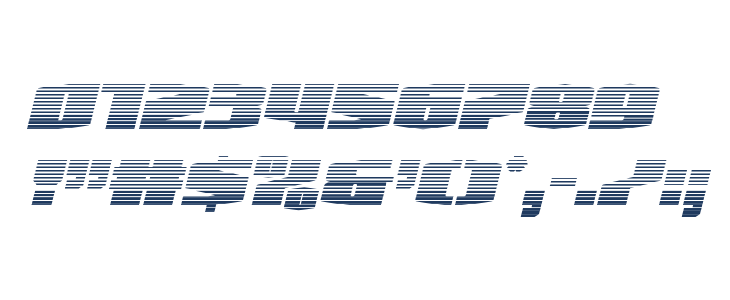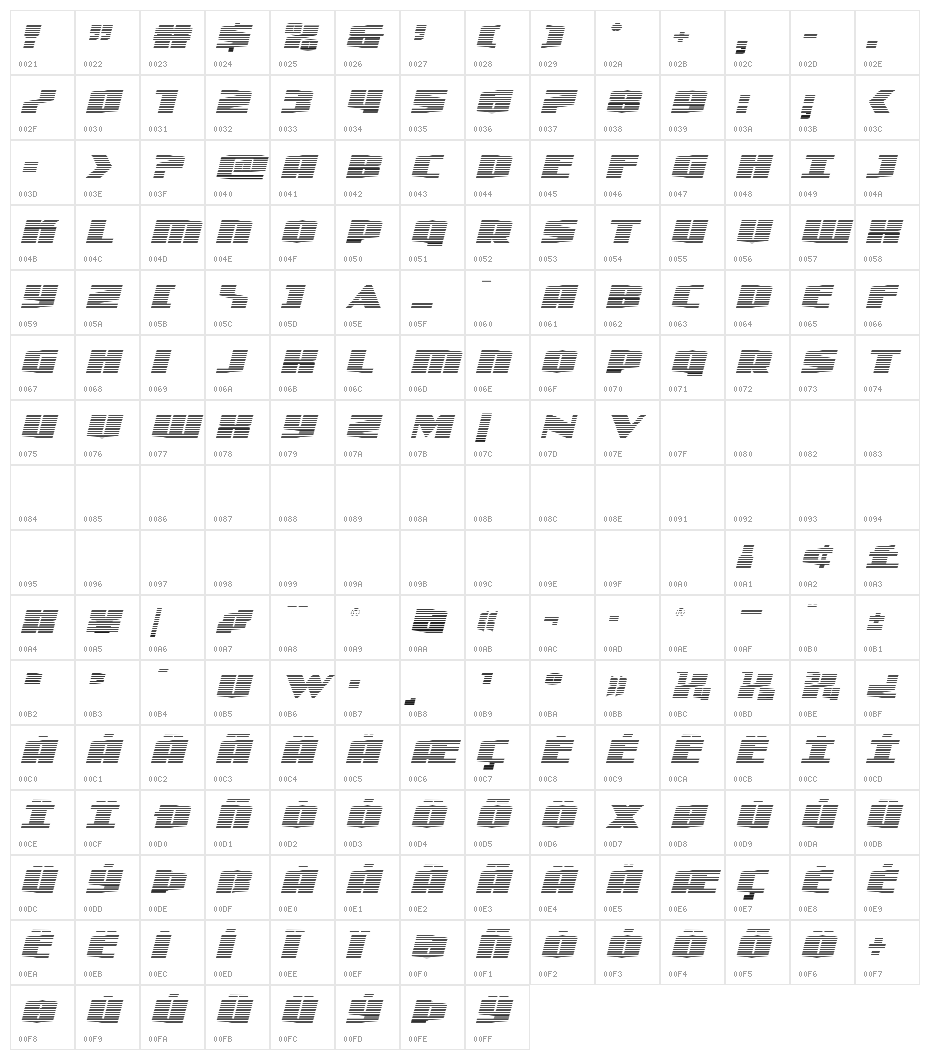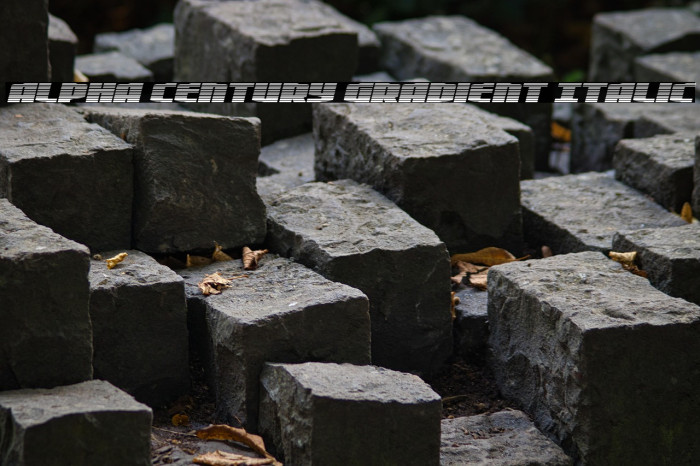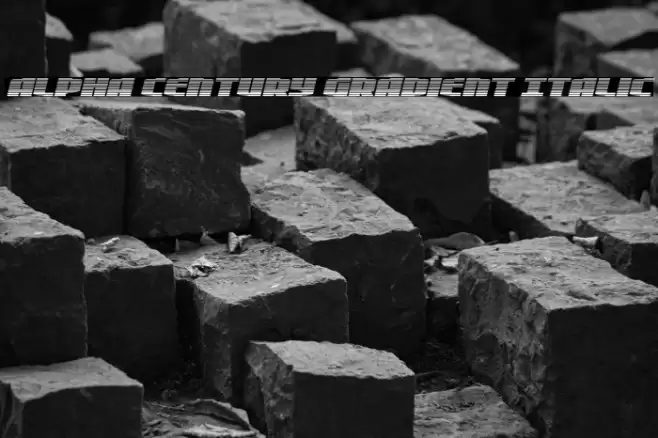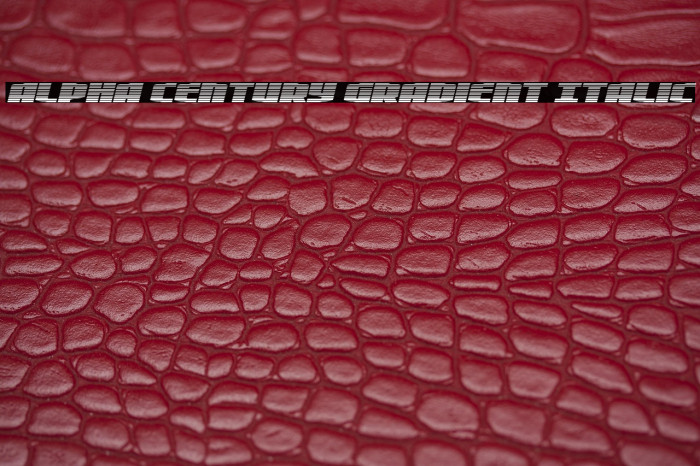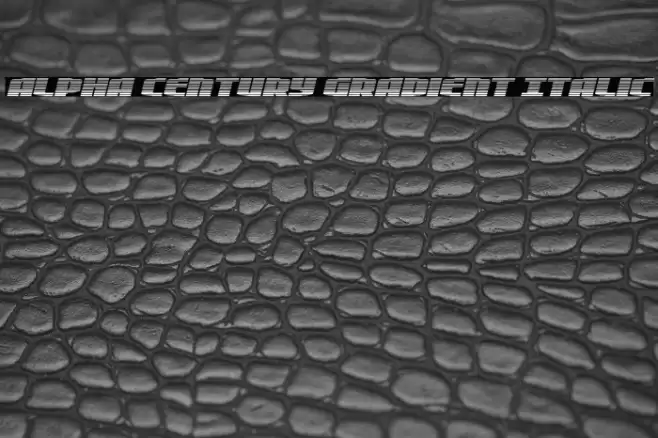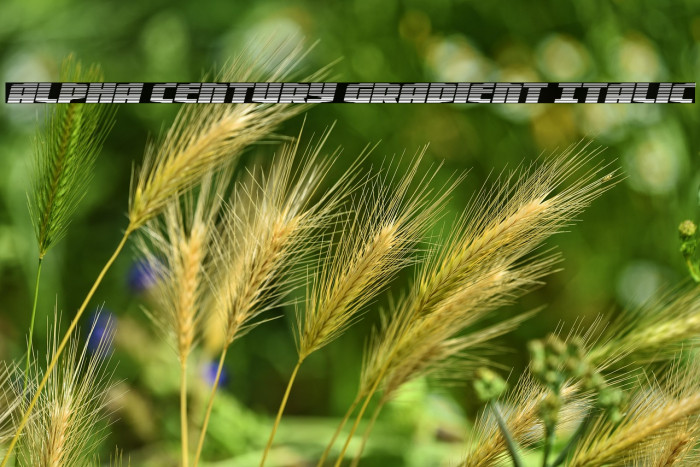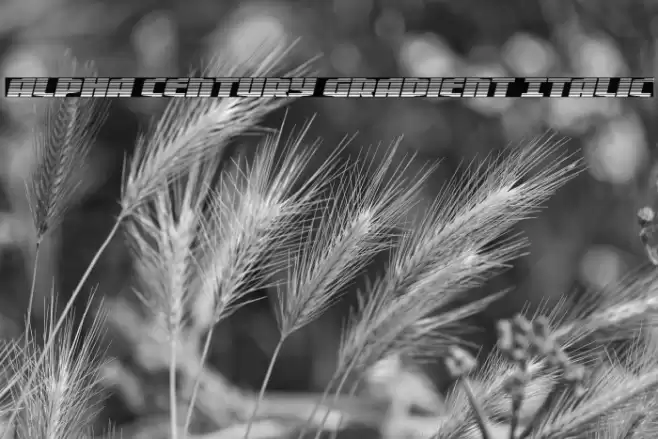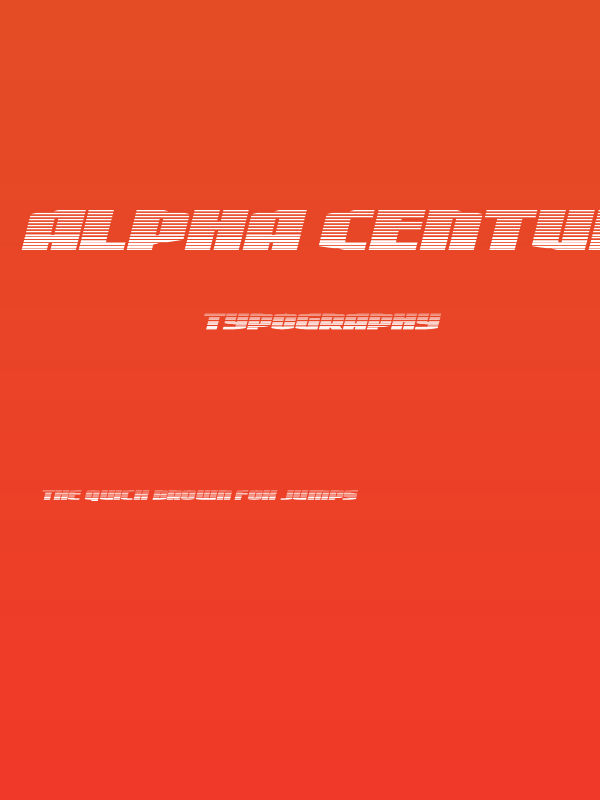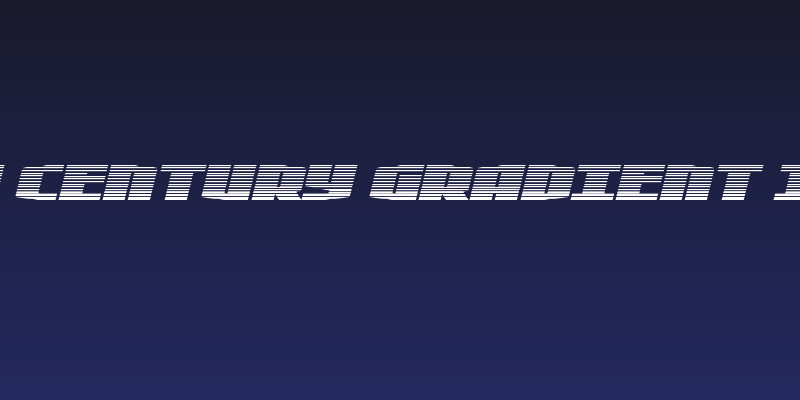
Alpha Century Gradient Italic Font
Alpha Century Gradient Italic Description
This font features a futuristic and dynamic design, characterized by its gradient effect and italicized form. The letters are composed of horizontal lines that create a sense of movement and speed, making it visually striking and modern. The uppercase and lowercase letters maintain a consistent style, with sharp angles and a sleek appearance. The numbers and special characters follow the same design principles, ensuring uniformity across all glyphs. This font's unique style makes it ideal for projects that require a bold and contemporary look.
| Proposed Projects | Ideal for sci-fi themed designs, technology branding, video game titles, and futuristic posters. |